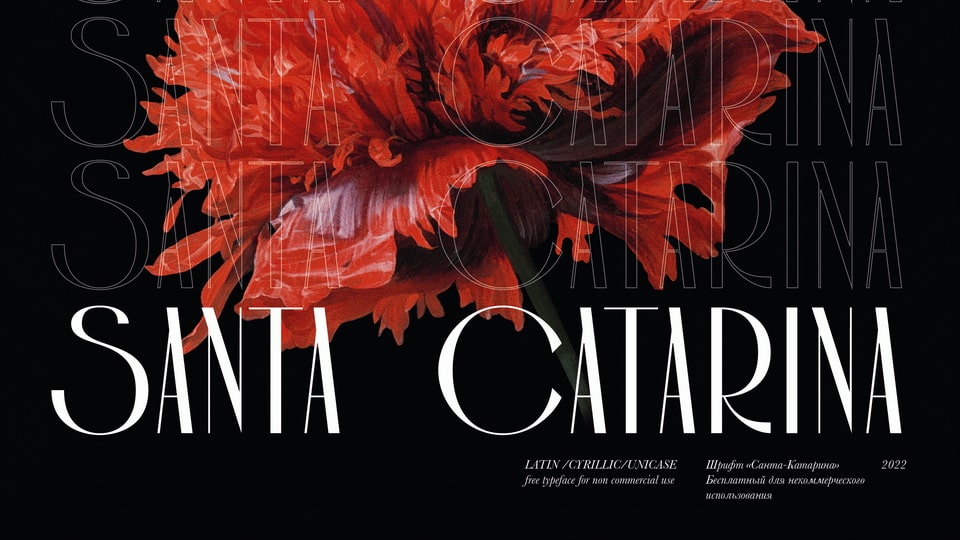
Download Santa Catarina font, a sans serif typeface where all rounded characters are wide, and the rest are narrowed. Due to the uneven width of the glyphs, an interesting display effect arises.
Designer: Stanislav Chiganov